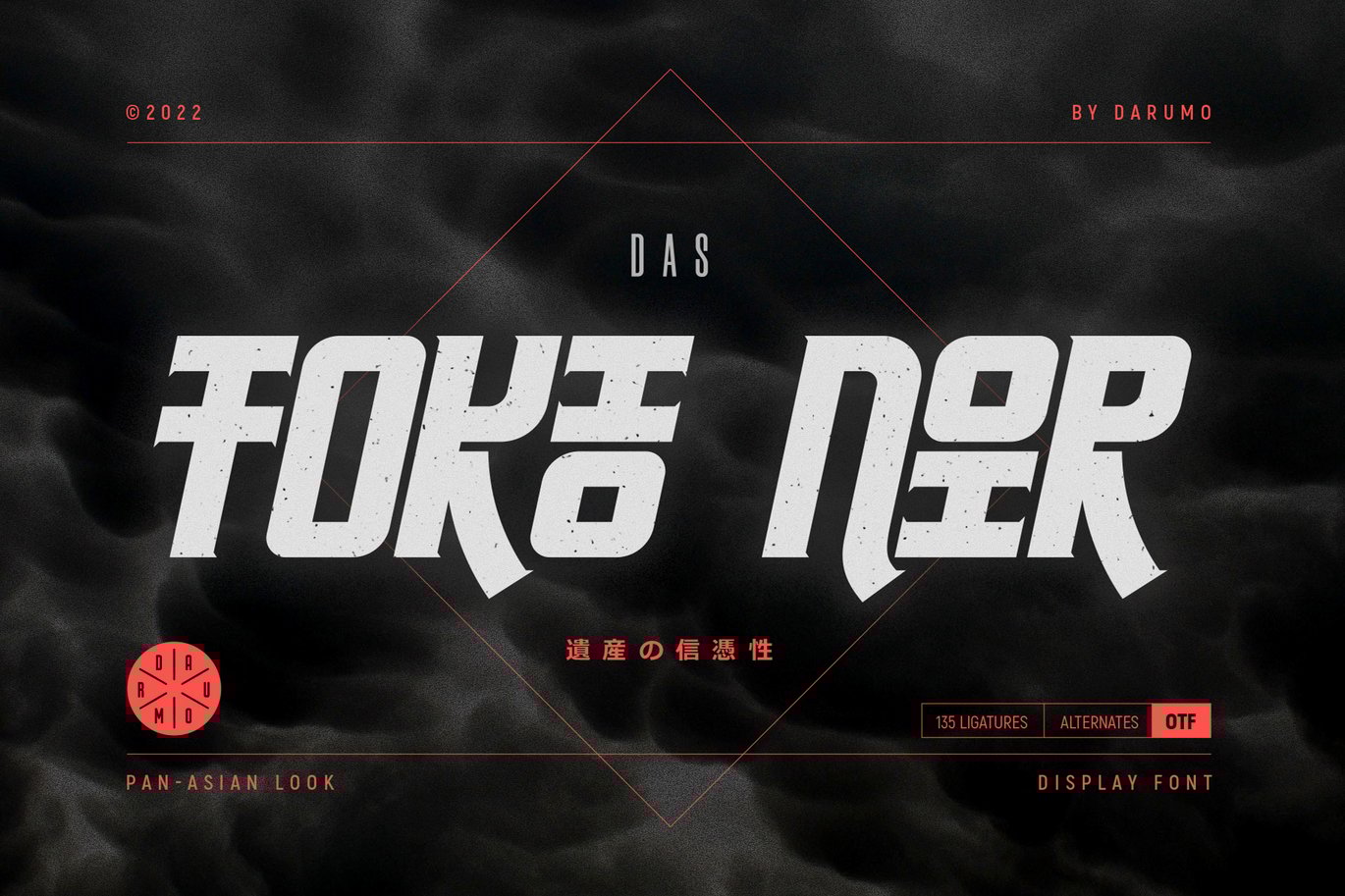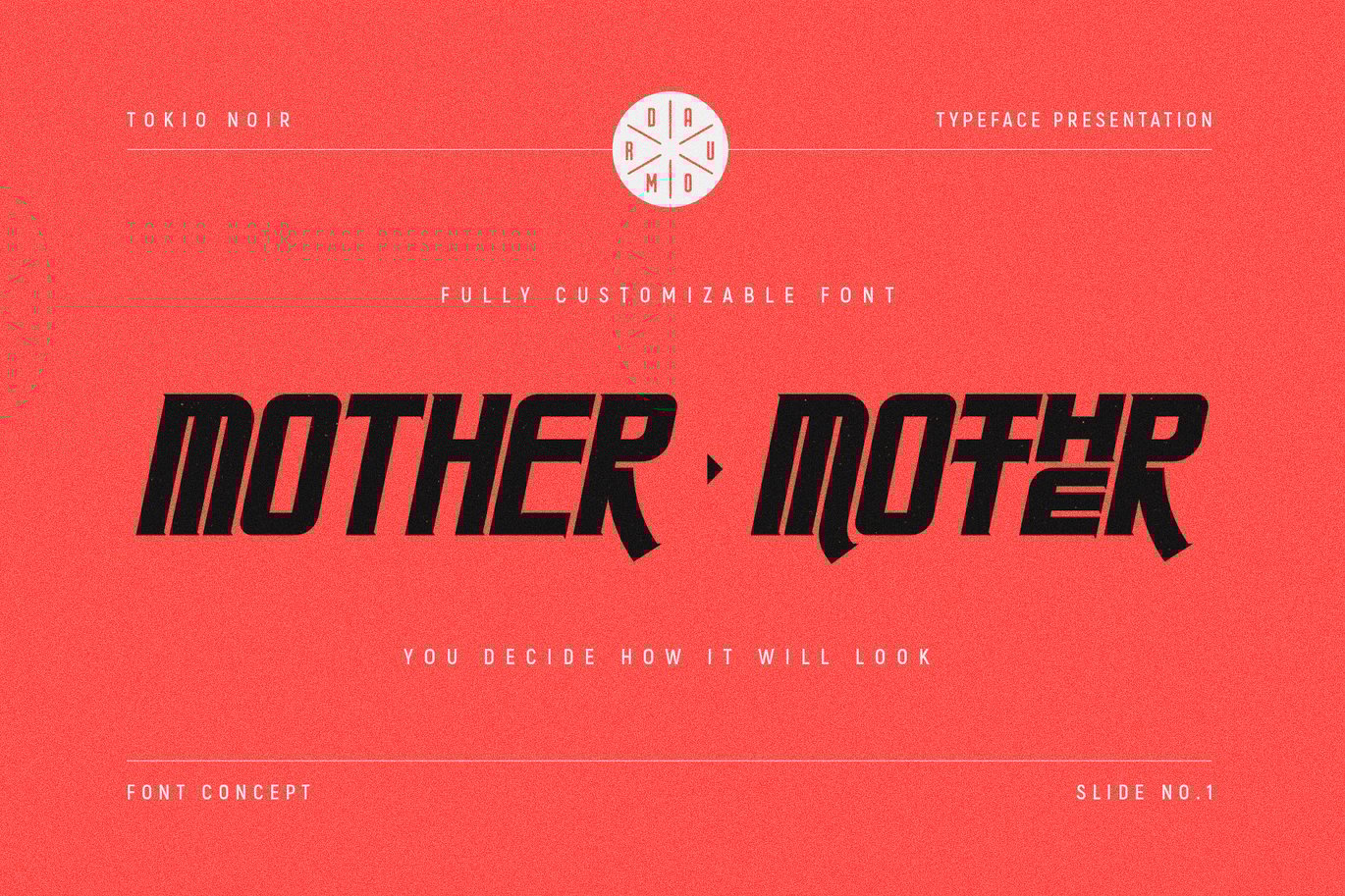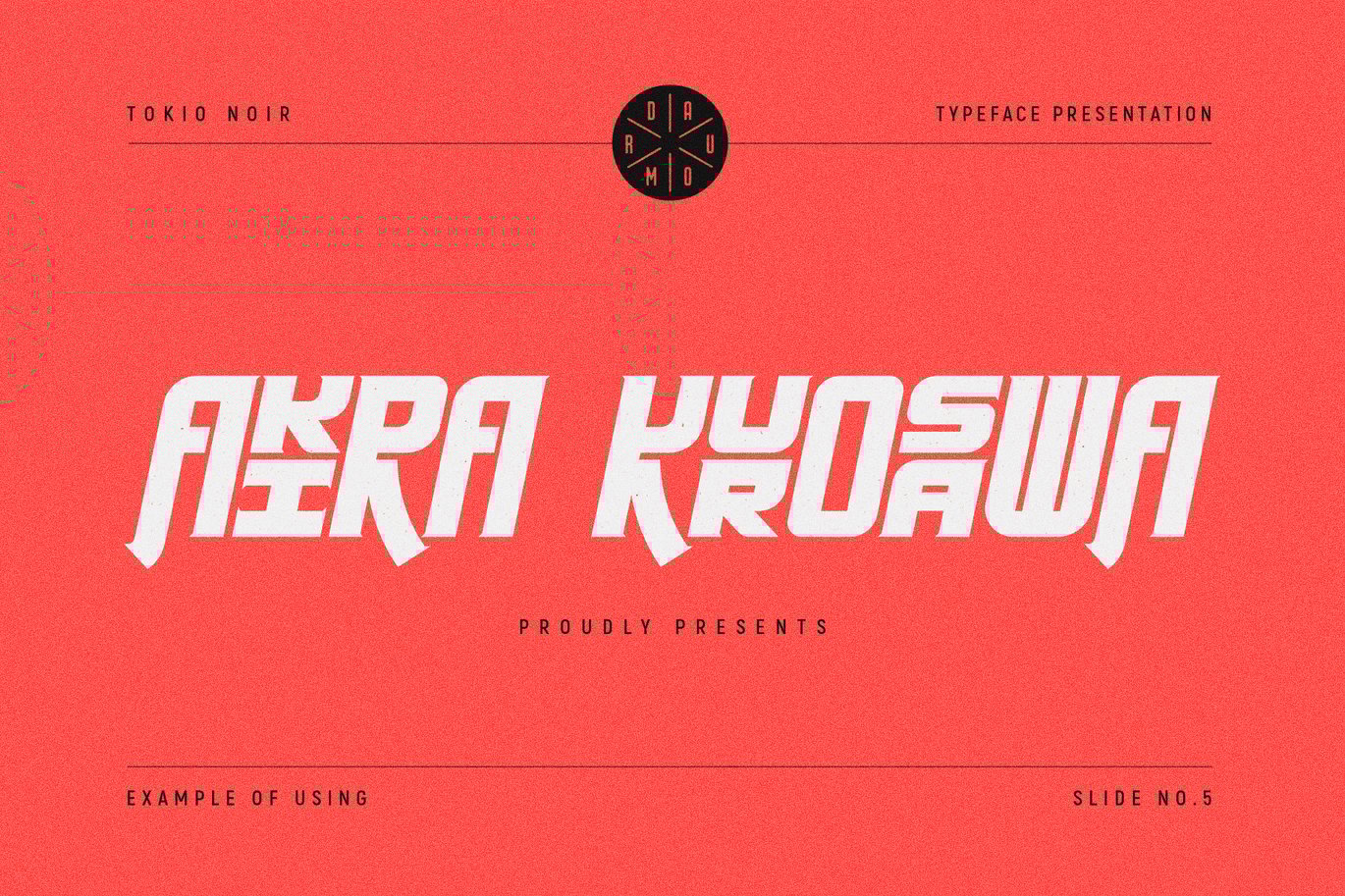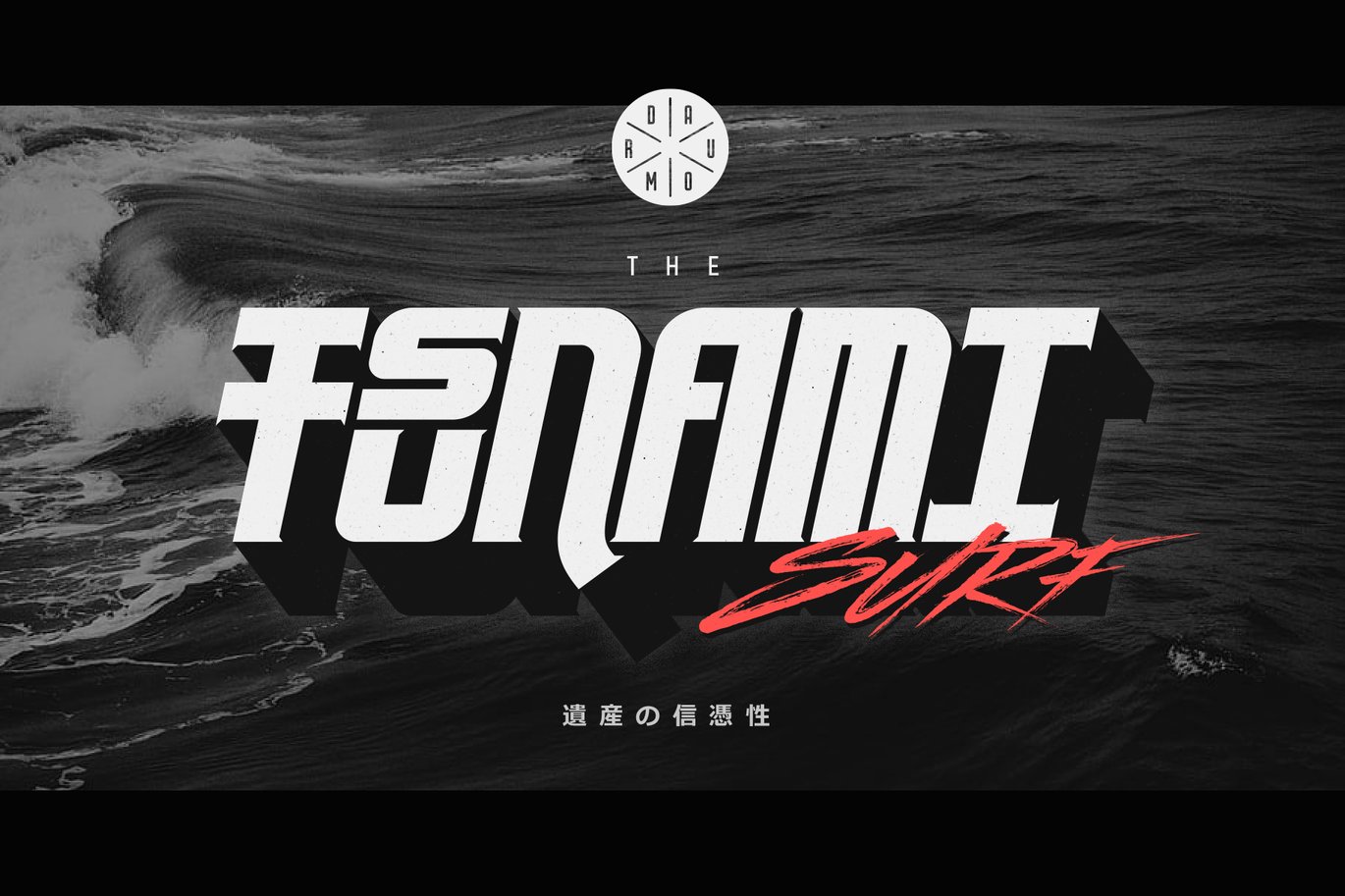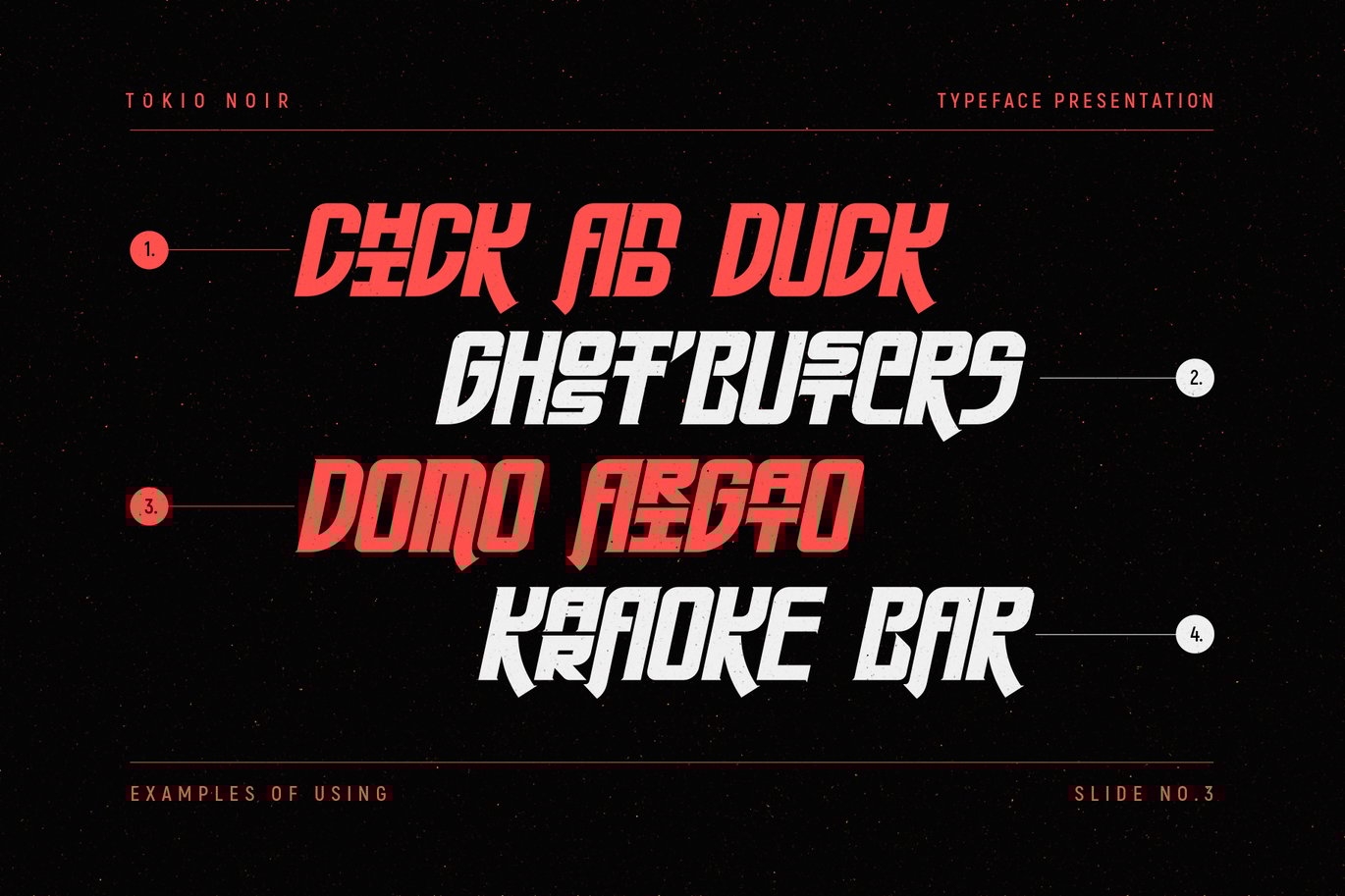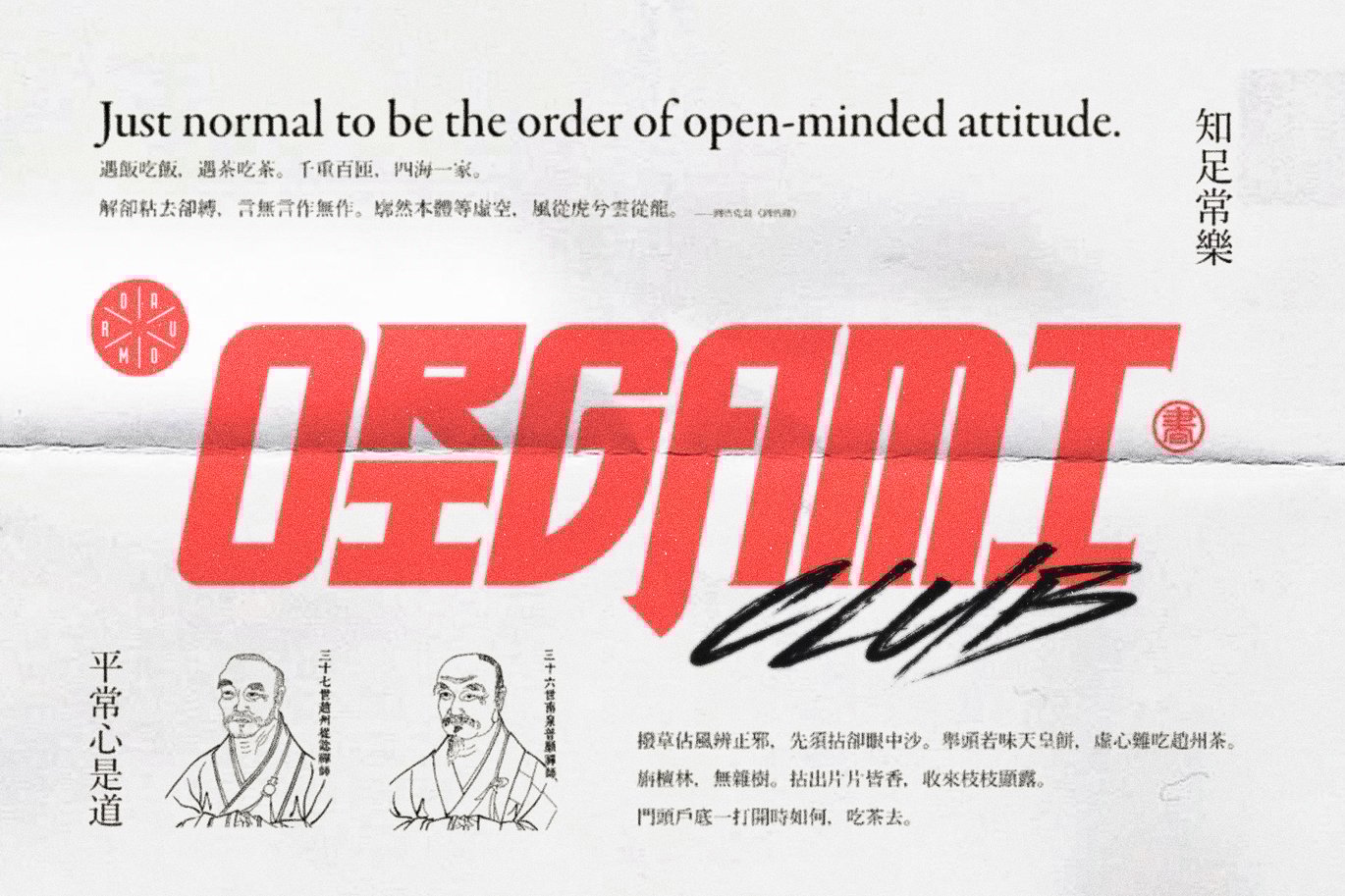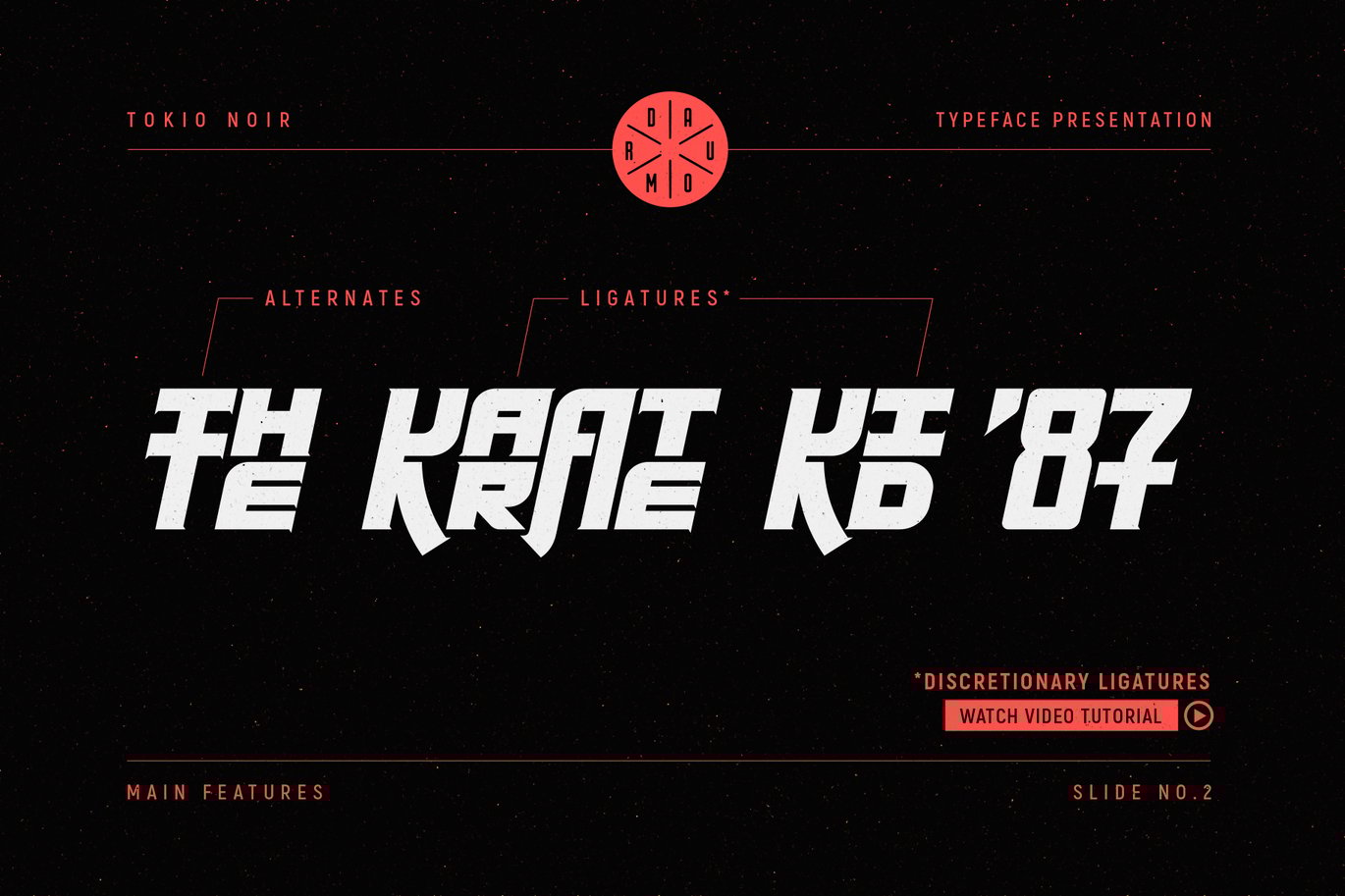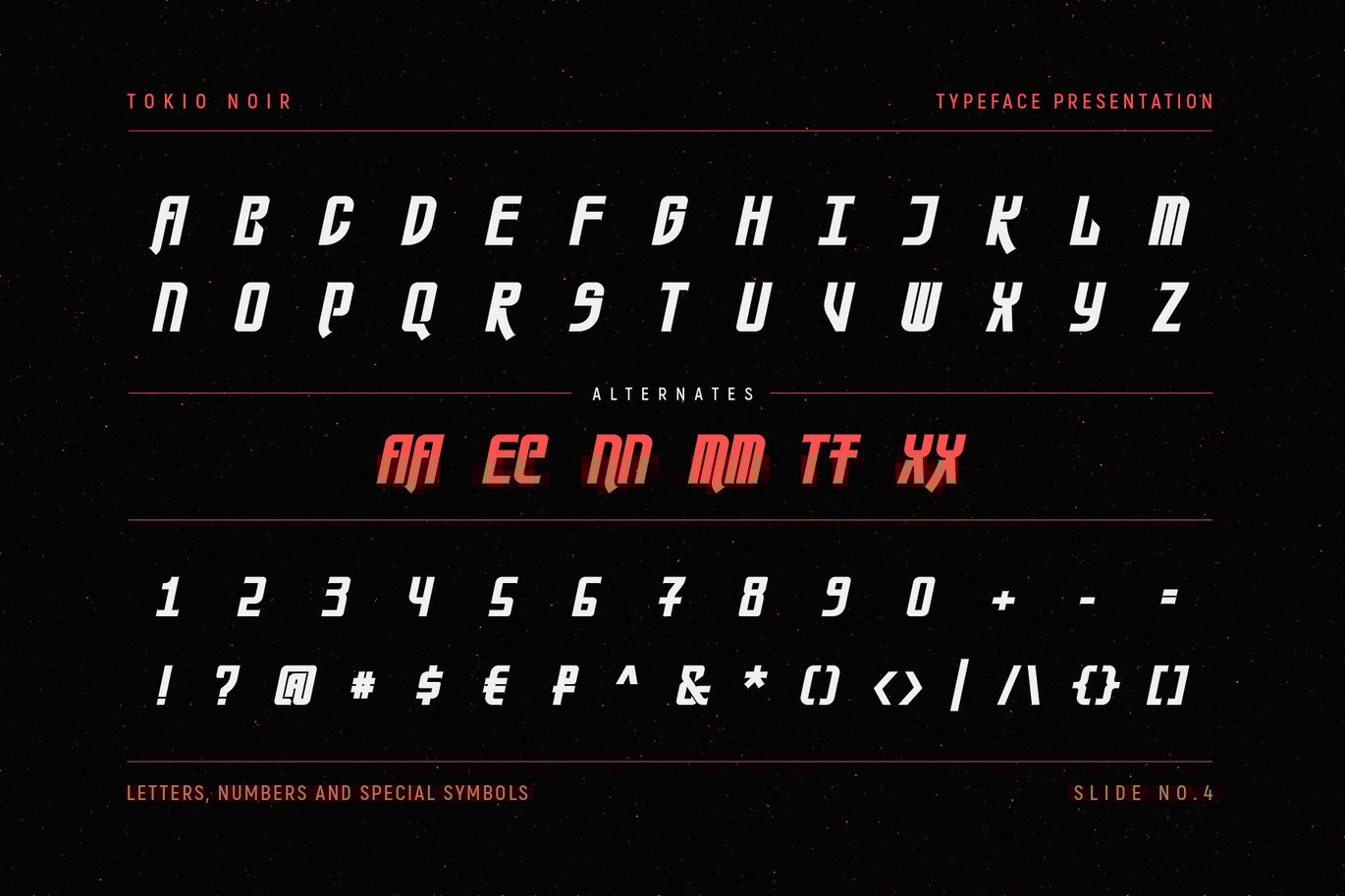
TOKIO NOIR Font
Introducing TOKIO NOIR, the eye-catching typeface with an Asian temper. Here’s what the designer tells about this project:
“I always loved Asian (Japanese, Chinese, Korean) hieroglyphic writing where every character looks to me as a finished piece of calligraphic art. So, Tokio Noir is my try to reinvent Western writing using the Oriental approach. Asian pictorial emotionality on the one hand and thoughtful European pragmatism on the other. This is my attempt to bring two such different concepts into one.”
This distinguishing typeface is specially designed for vivid and eye-catching headers. Perfect for catchy logo/emblem designs, package designs, etc. Have fun using it!